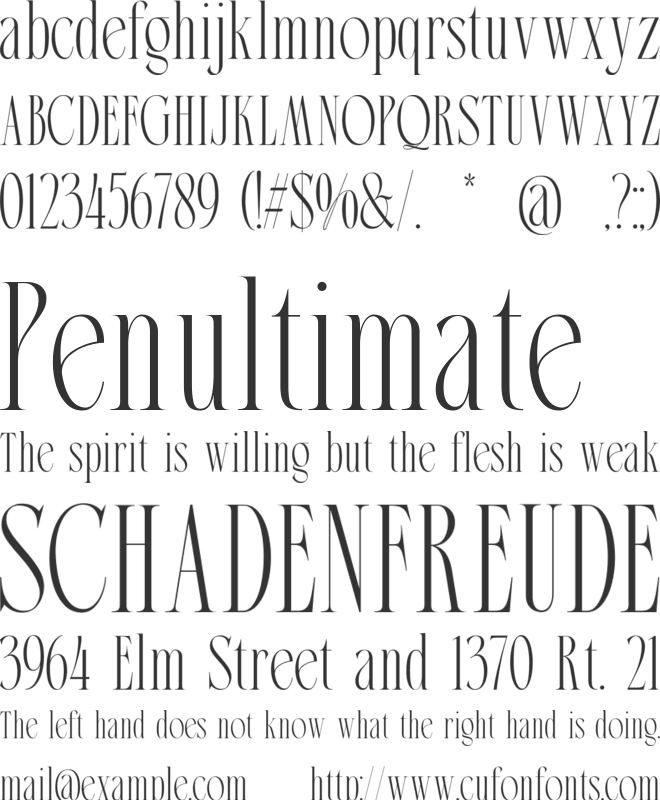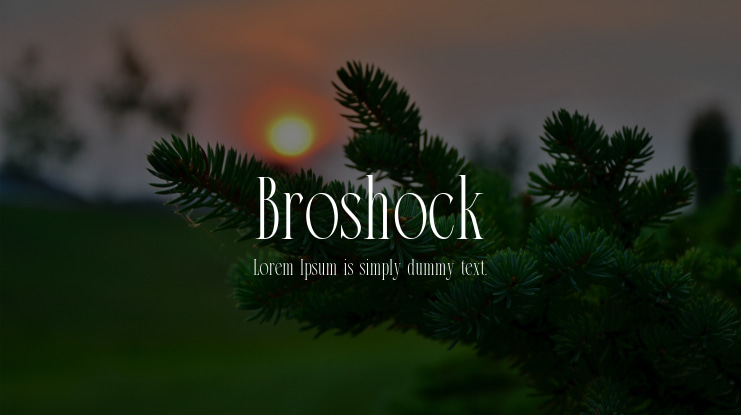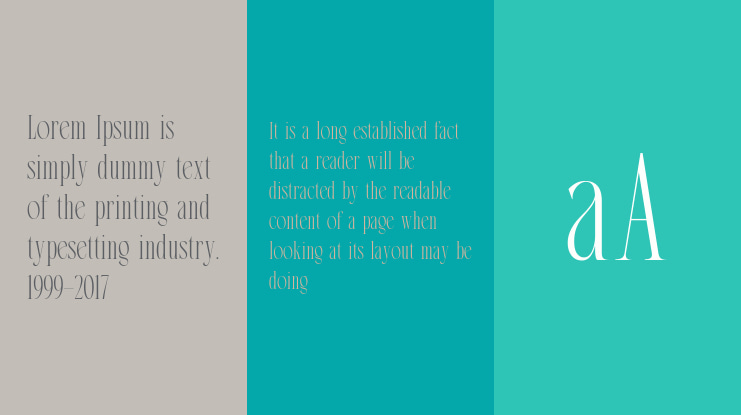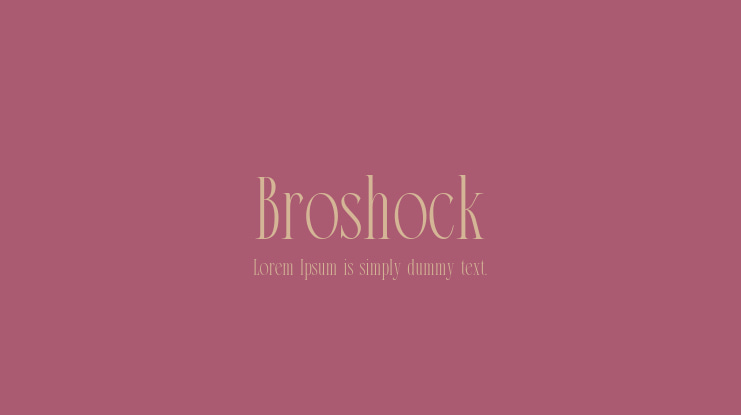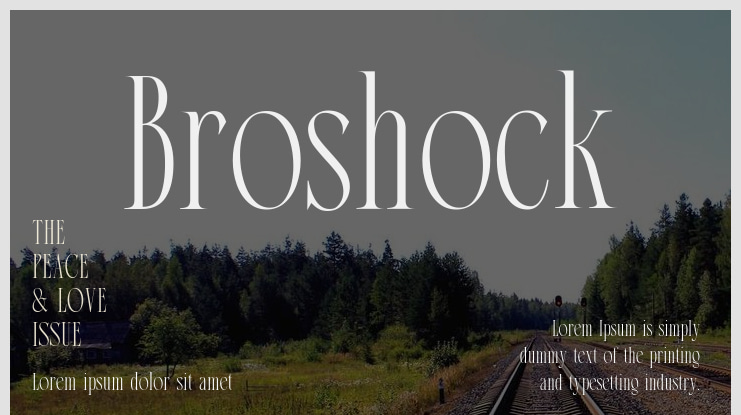
Broshock Font
Enhance Your Designs with Contemporary Elegance Presenting the Broshock Font, a symbol of modern sophistication and versatile style. With its sleek and tall sans serif body that features elegant ribbon-like curves, this typeface radiates a unique charm perfect for design projects that call for a blend of sophistication and modernity.